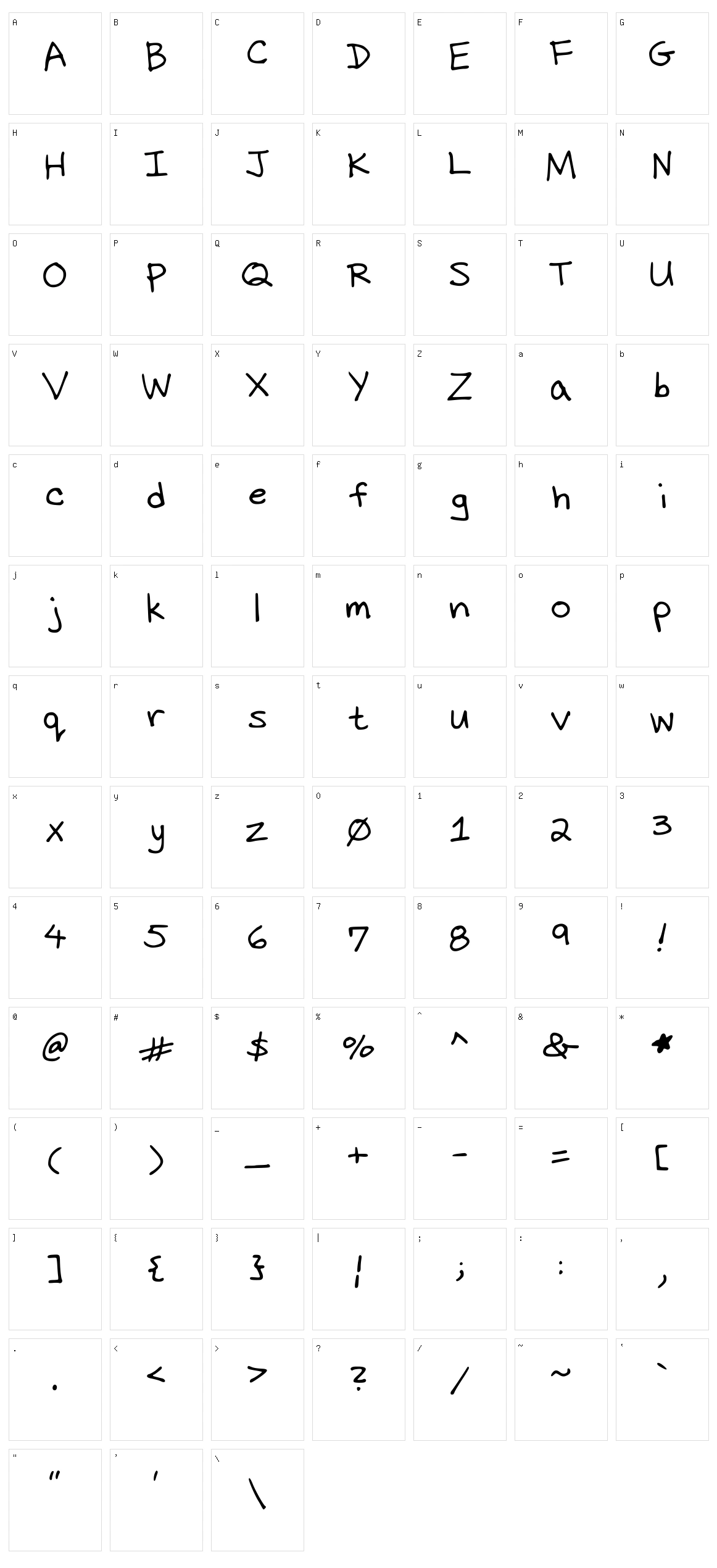
The free font Dicks Handwriting is carefully designed by Richard Brum, showcasing a thoughtful balance of creativity and usability and falls under the Script font style. When you download the ZIP file, it contains only 20.15 KB of font files, making it lightweight and quick to download. Please review the license details below to understand permitted usage and distribution rights. If license information is not available, we recommend using this font for personal projects only or contacting the author directly for commercial usage permissions.